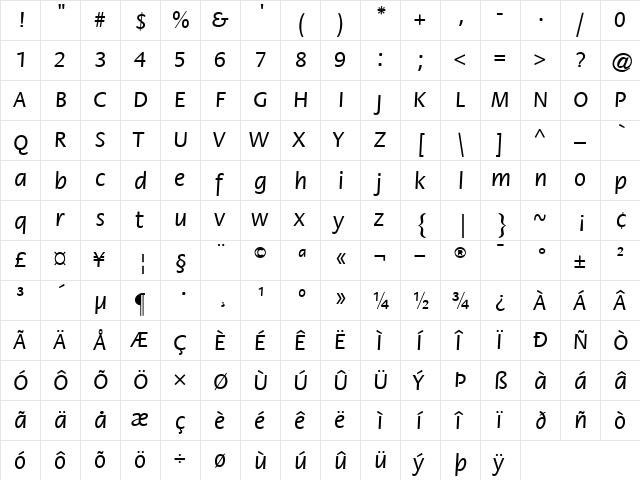
ITCFlora-Medium MediumItalic Font Preview
ITCFlora-Medium MediumItalic
Design Context for ITCFlora-Medium Typeface
ITCFlora-Medium takes a measured approach to typography — its balanced proportions and neutral character make it a reliable workhorse for both digital and print work. The dynamic lean of this cut emphasises speed and emphasis in any layout.
Pro Tip: Use ITCFlora-Medium for emphasis, pull quotes, and subheadings where its slanted energy can add rhythm to the layout.